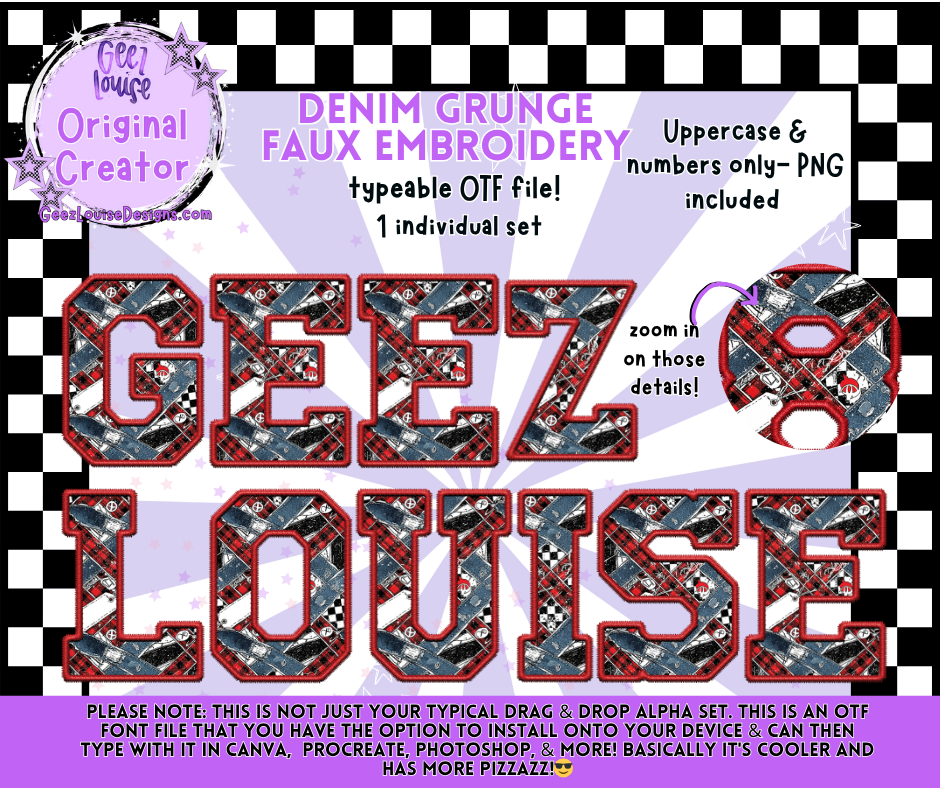
Denim Grunge Faux Embroidery Alpha | OTF Font + PNG Letter Set
Bring the edge to your designs with the Denim Grunge Faux Embroidery Alpha!
This bold alpha mixes distressed denim textures, red stitching, and patch-style details for a rugged look that still keeps things polished. Perfect for sublimation, apparel designs, and digital artwork that needs that “tough but stylish” vibe.
This isn’t your average alpha — it’s a typeable OTF font that gives you realistic embroidery texture and grungy denim flair with every keystroke.